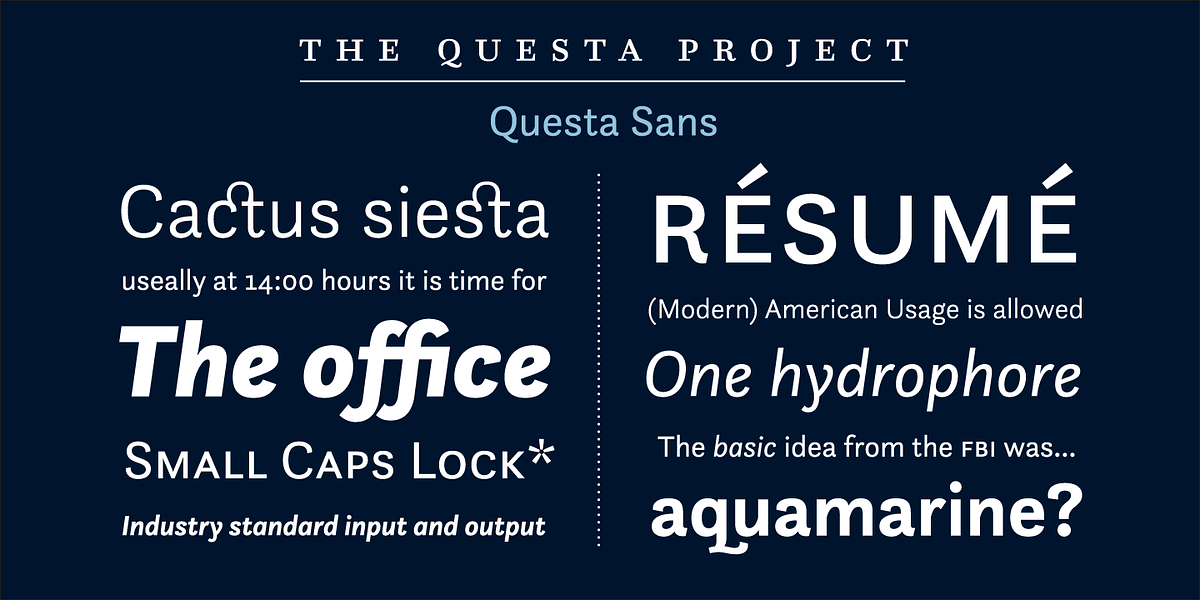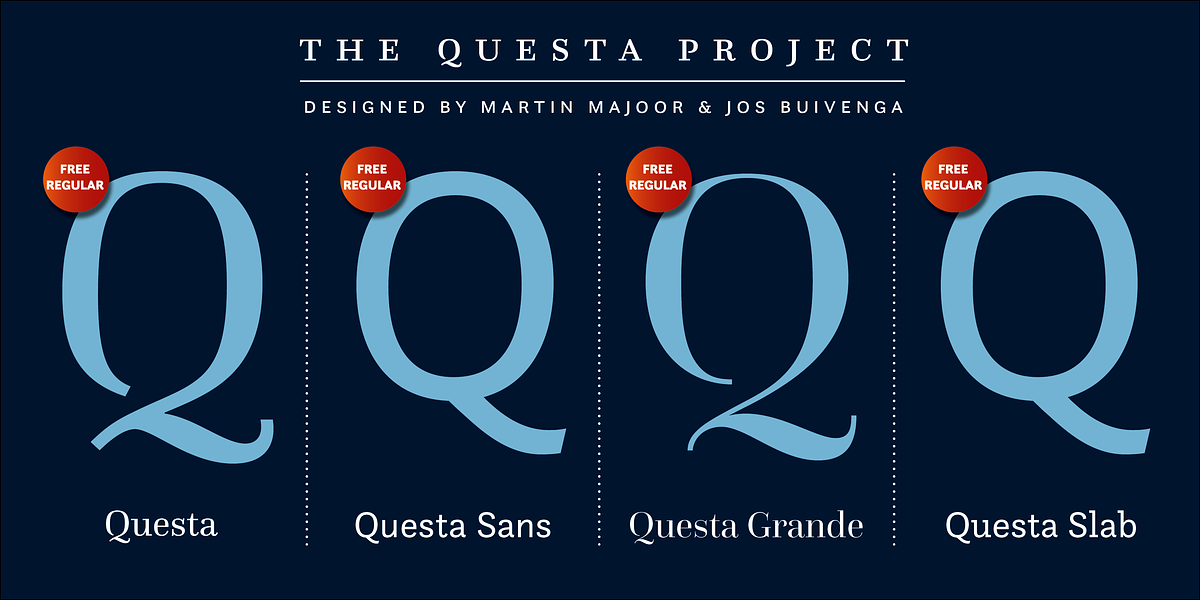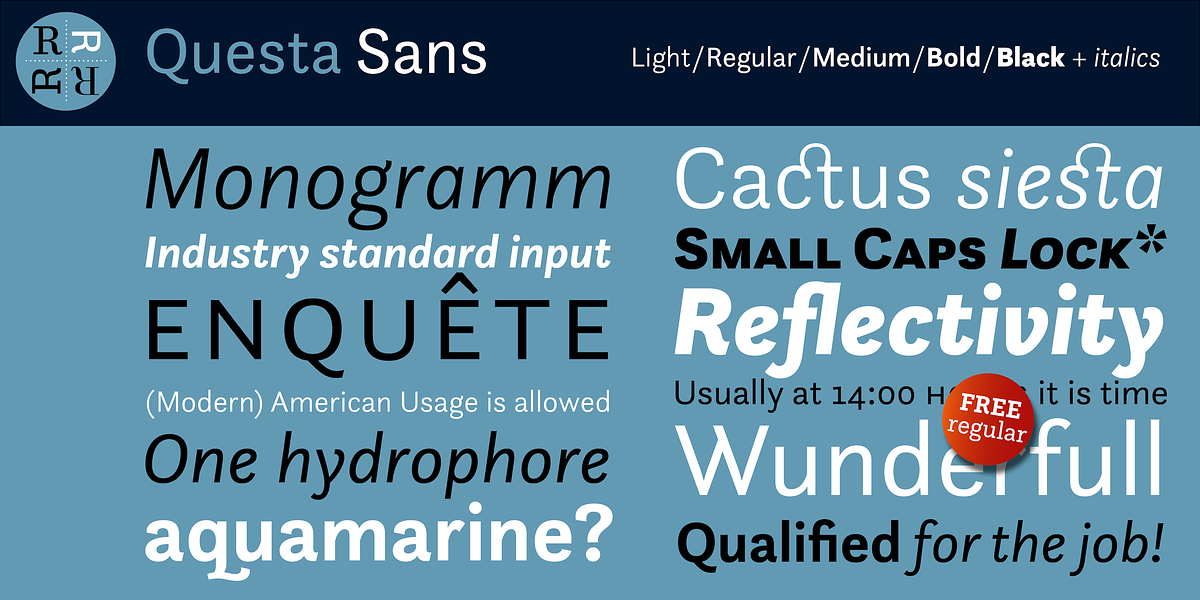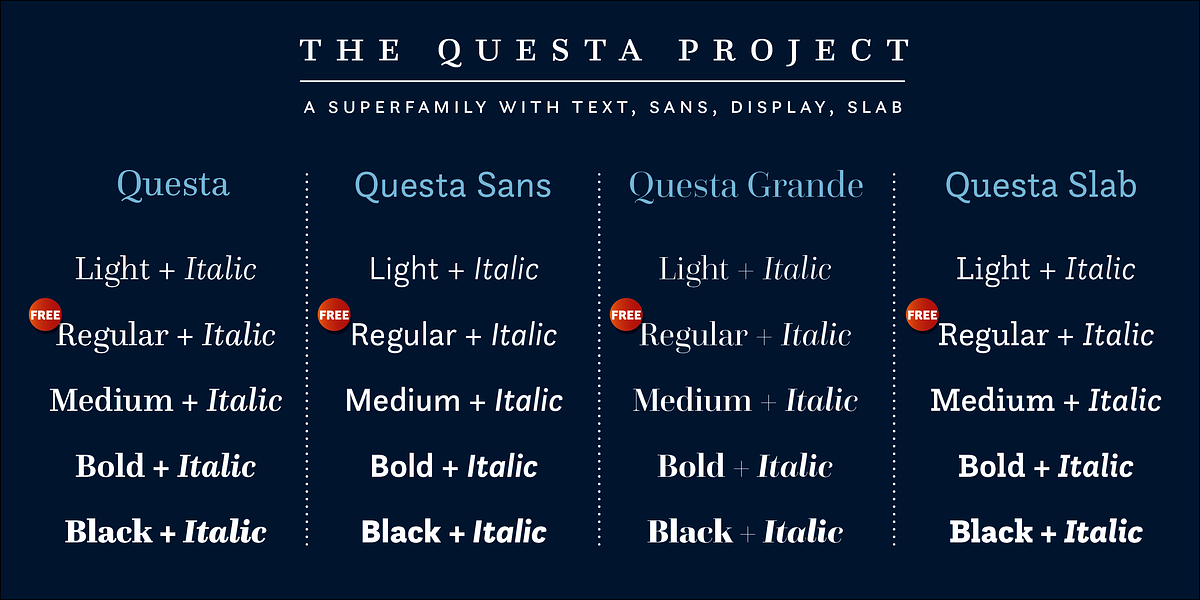
Questa Sans
Questa Sans is a sans serif typeface designed by Jos Buivenga and Martin Majoor as part of The Questa Project. It features a grotesque style known for its clean lines and geometric shapes, making it highly legible. The inclusion of small caps, various numeral sets, ligatures, and extensive language support positions Questa Sans as a reliable choice for paragraph text and branding applications.